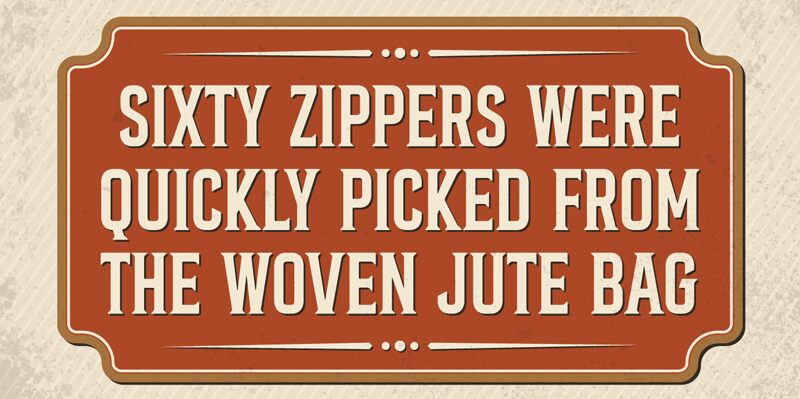
Valley, designed by Variatype, is a display font that exudes a distinct retro flair. Its extra-condensed style sets it apart, offering a unique take on vintage typography with a modern twist. The bold letterforms exhibit sharp contrasts and tight spacing, making it an impactful choice for headlines and branding where space is at a premium.
The aesthetic appeal of Valley lies in its ability to command attention while maintaining readability. Its high-contrast strokes and playful geometry lend themselves well to creative projects that require a touch of nostalgia without sacrificing sophistication.
Whether you're crafting eye-catching posters, evocative logos, or standout packaging, Valley's retro charm is versatile enough to adapt to various design scenarios while ensuring your work stands out with character and style.